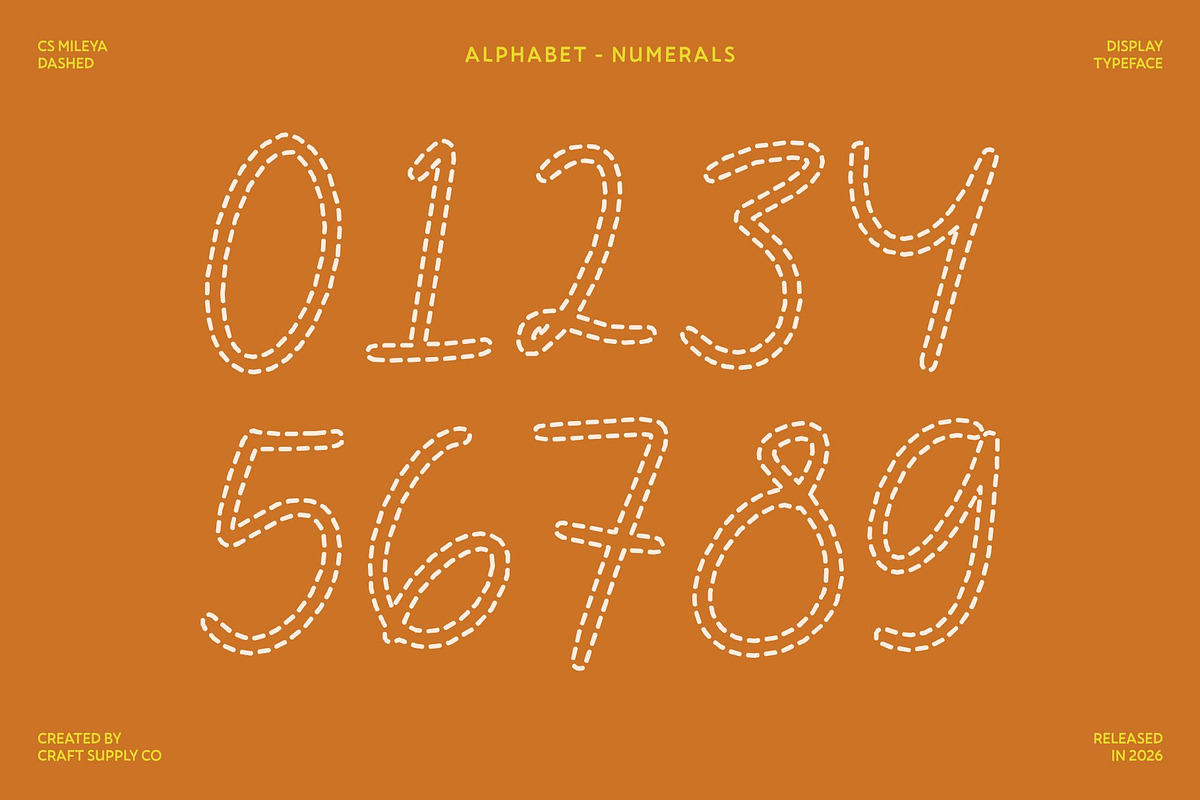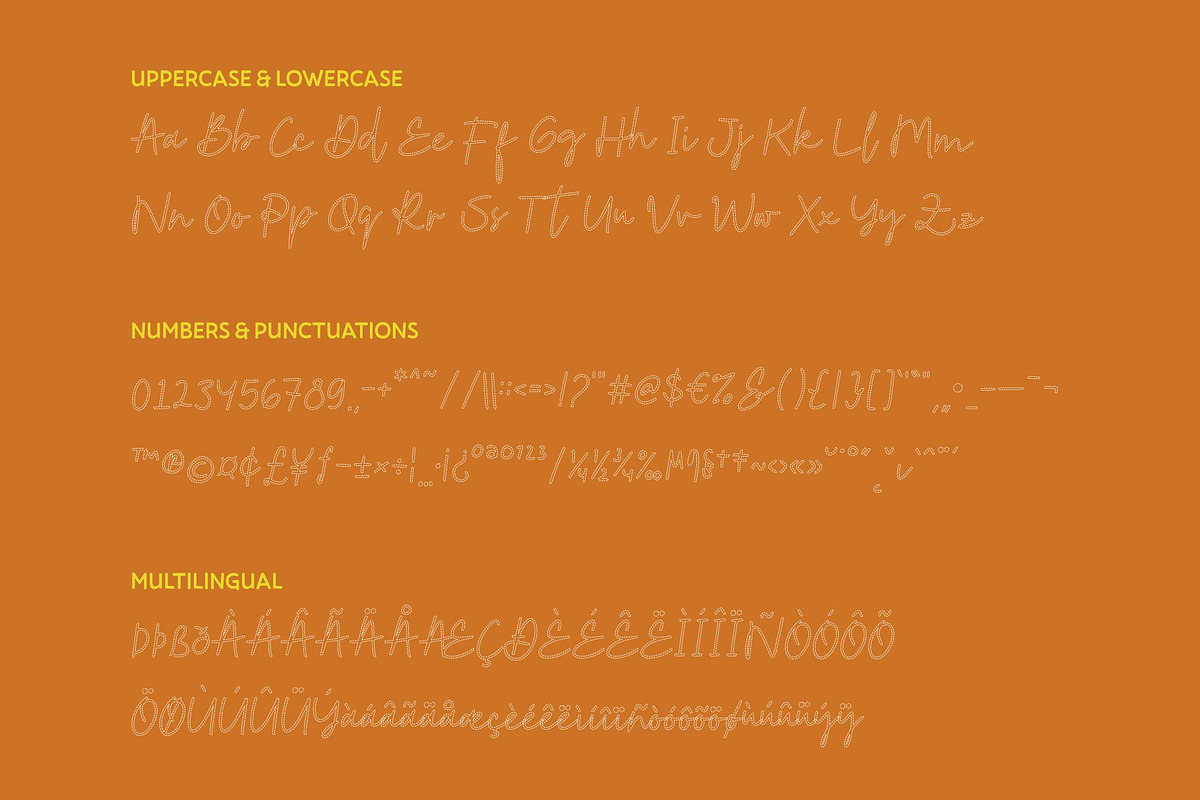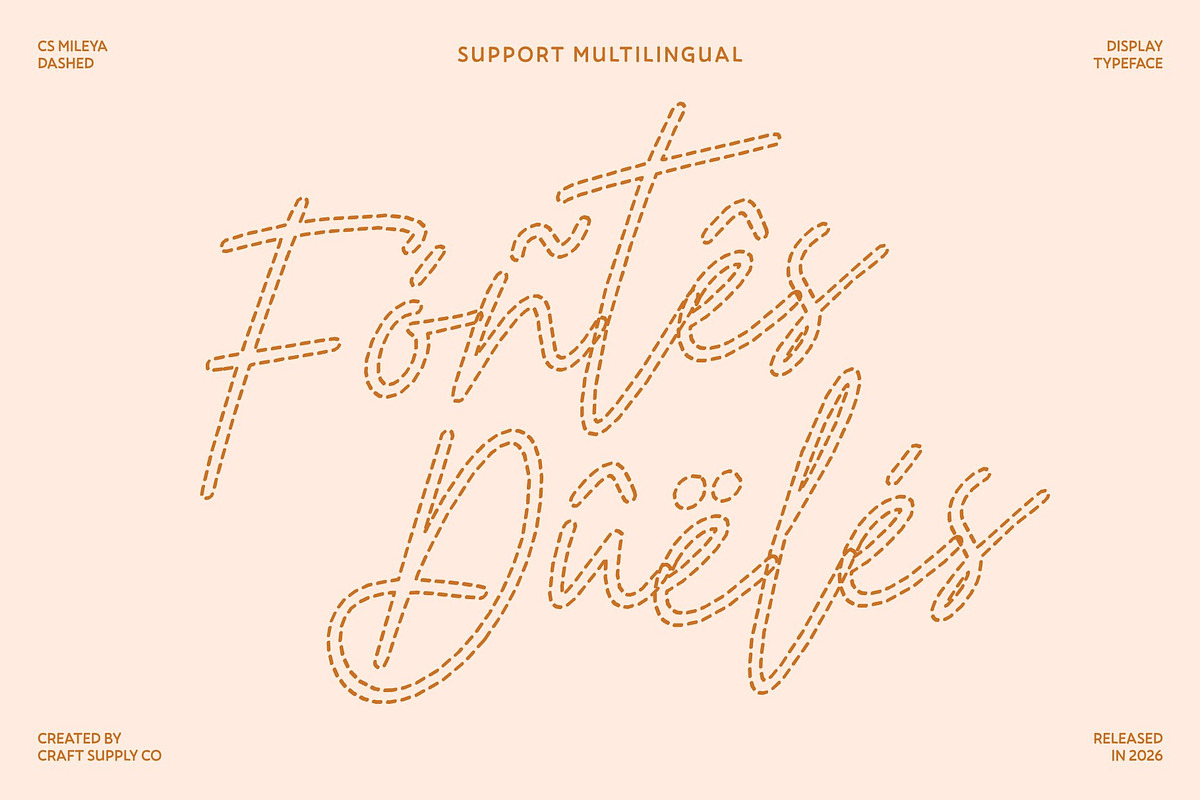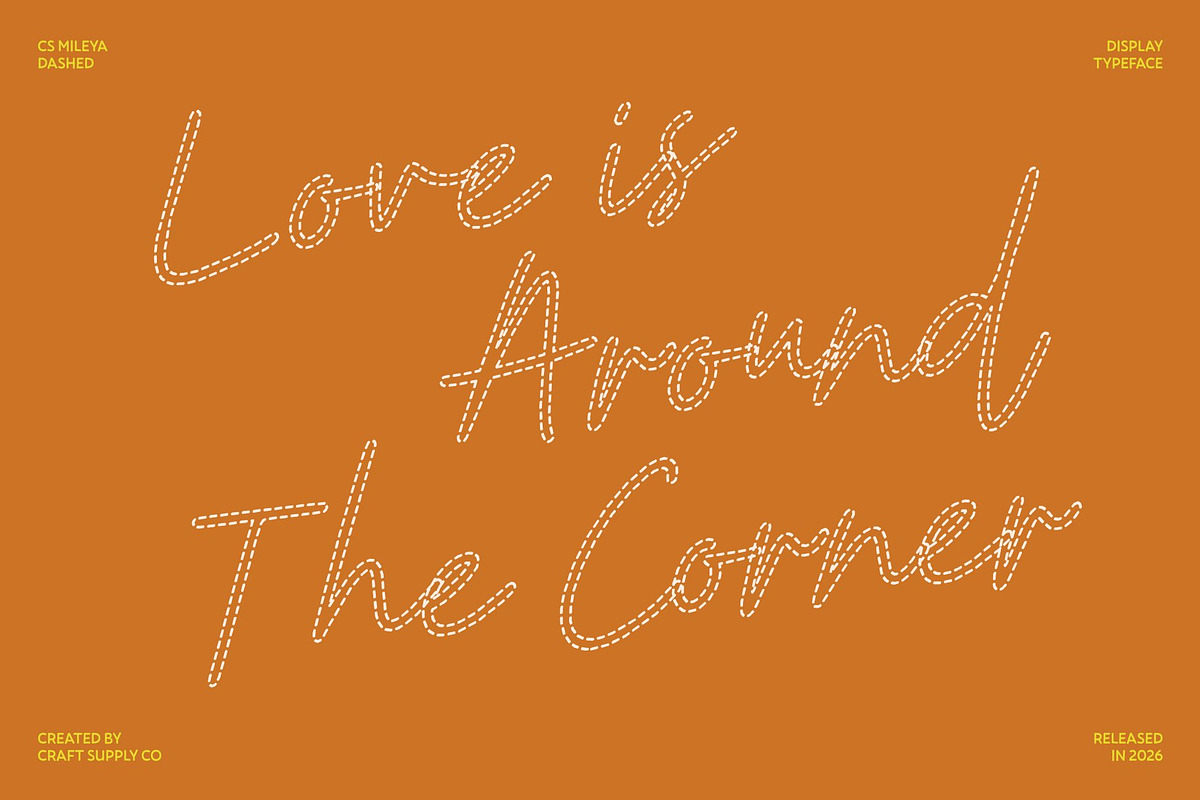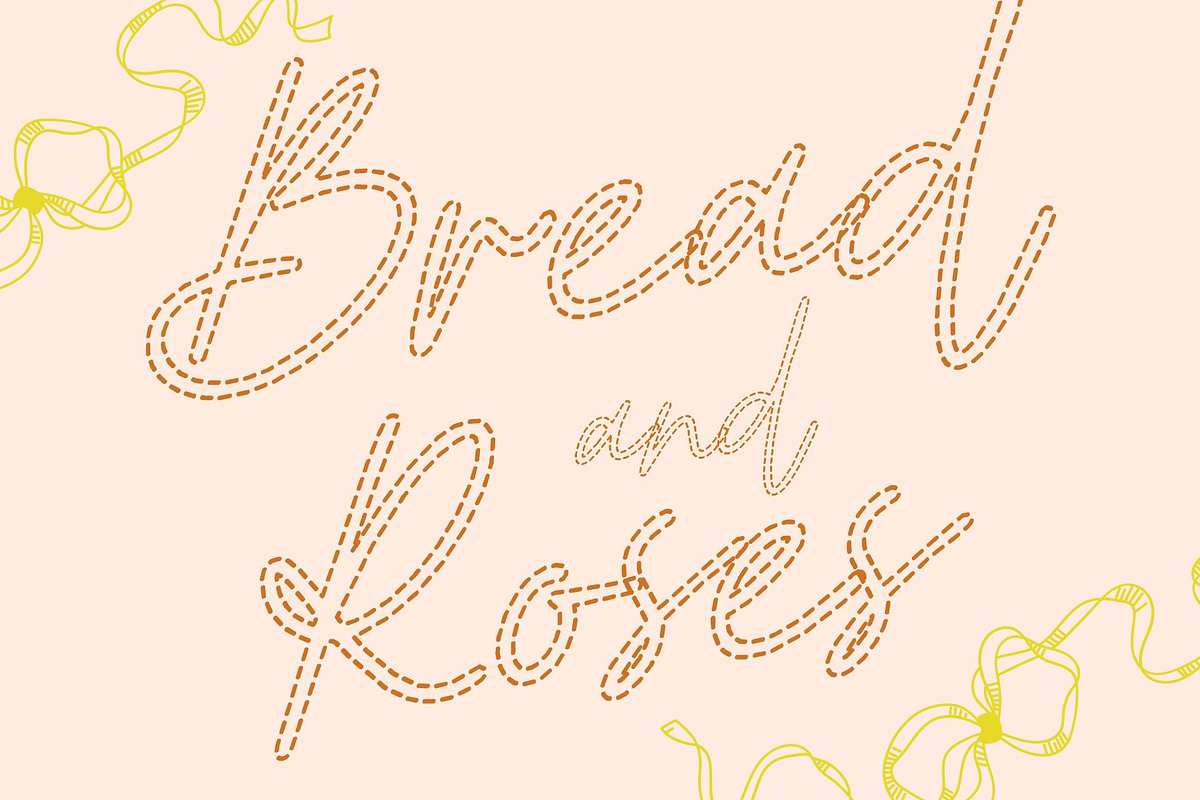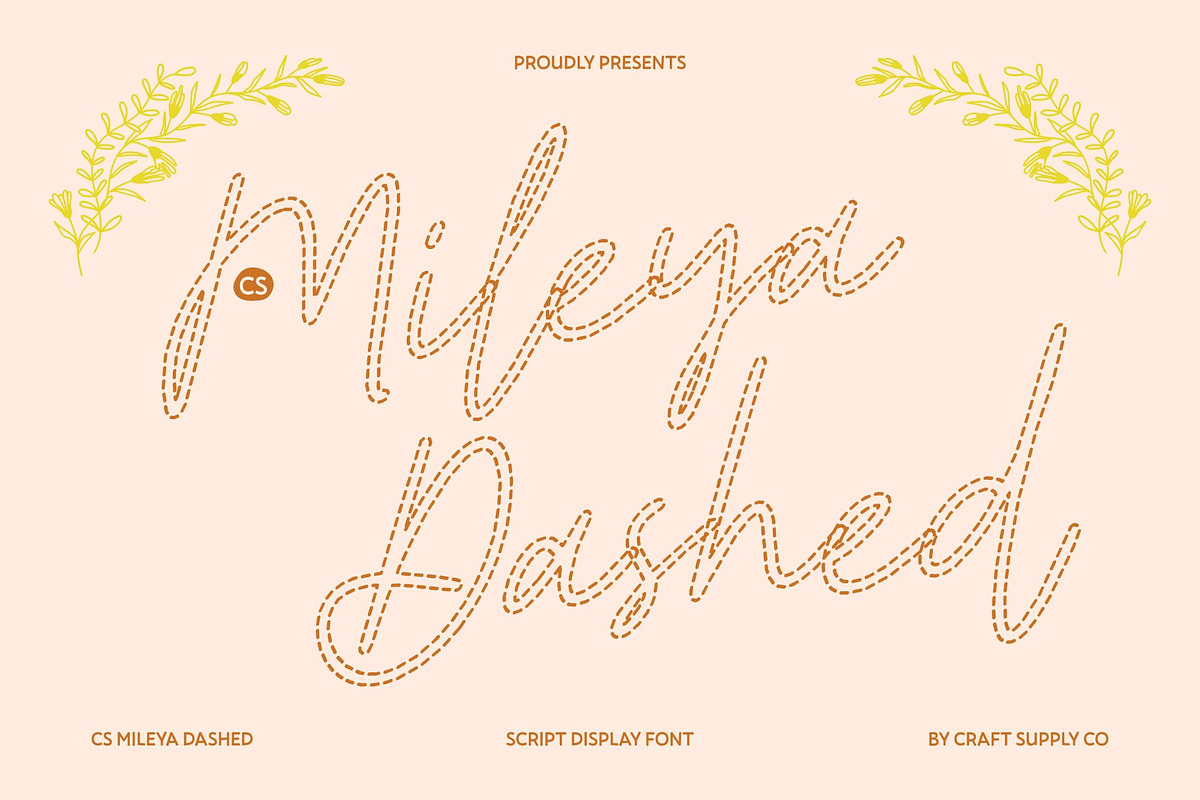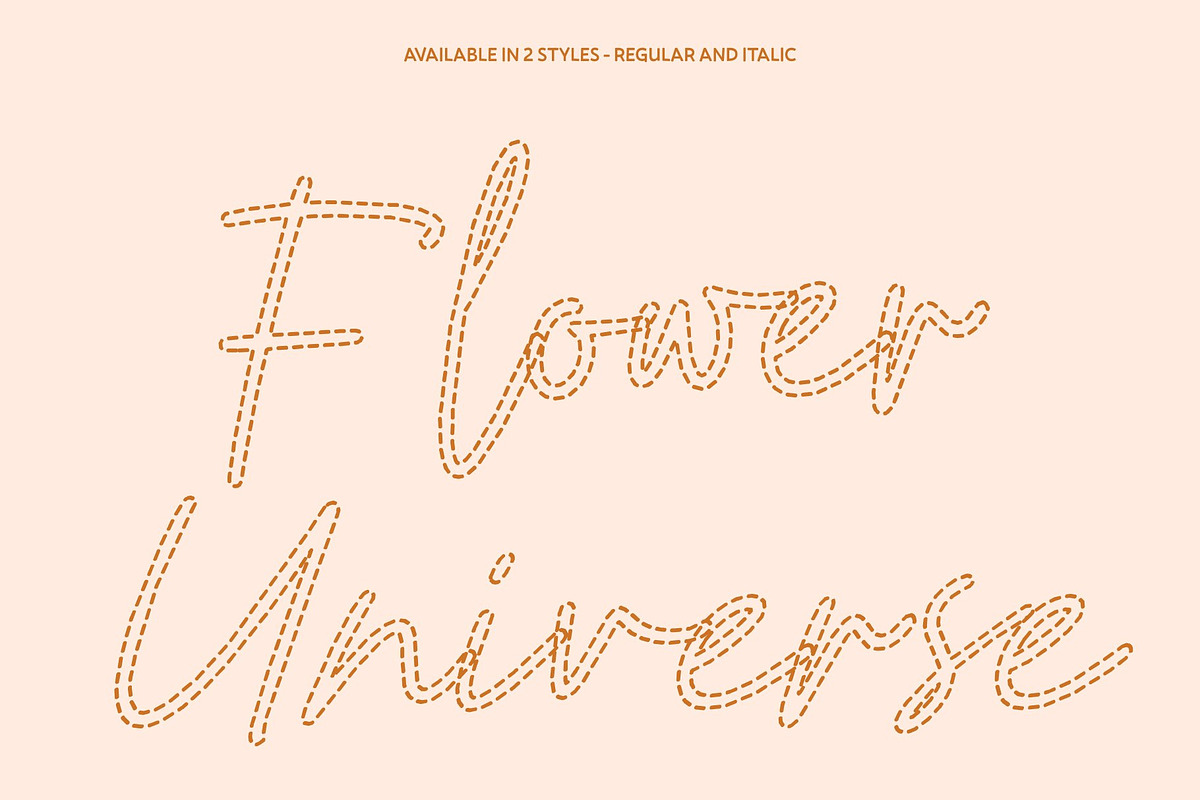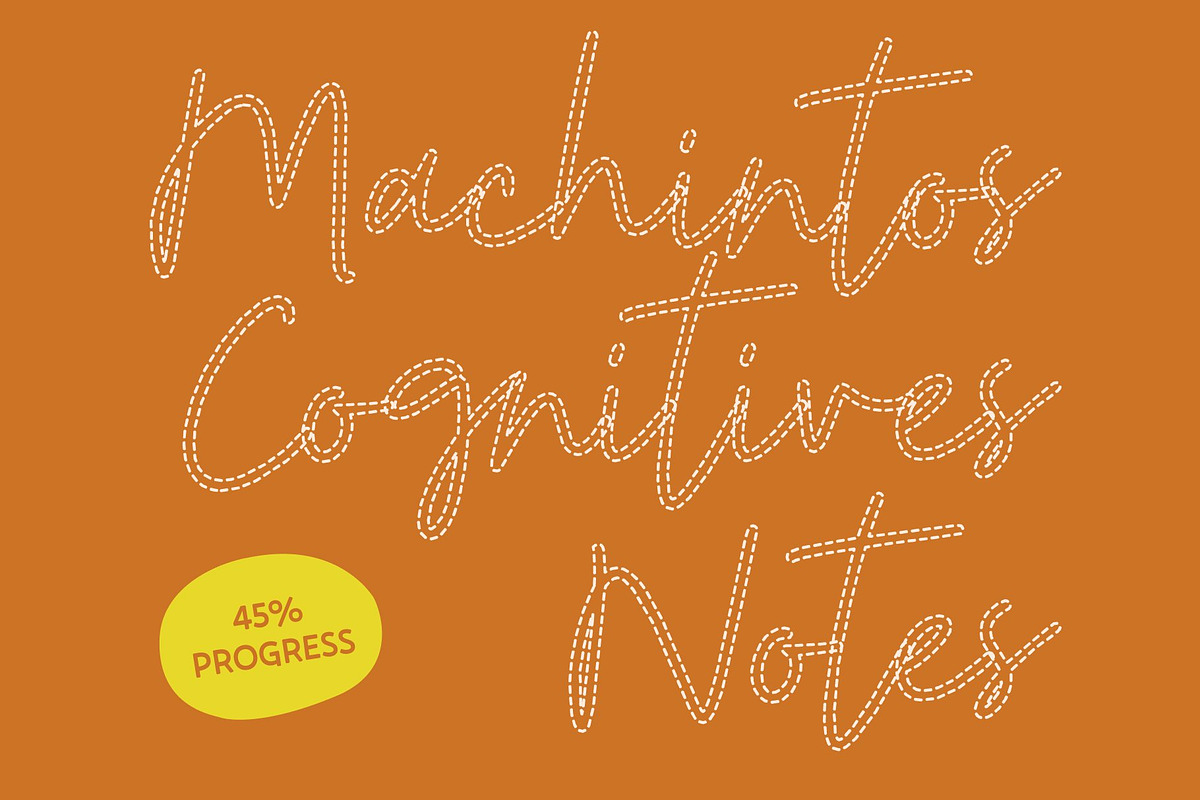
CS Mileya Dashed
CS Mileya Dashed – Graceful, Stylish, and Modern Script Elegance
A Flowing Script with Contemporary Sophistication This is a stylish script font designed with beautifully flowing strokes and graceful curves. Its modern rhythm gives every letter a smooth, luxurious movement, making your text feel refined and effortlessly elegant. Whether you’re crafting romantic layouts or high-end visuals, this font adds a polished touch that enhances your message with sophistication.
Elegant Script with a Light Dashed Texture The dashed style transforms each stroke into a sequence of delicate, broken lines, creating an airy and handcrafted appearance. This subtle stitched effect softens the script’s elegance with a creative and relaxed personality, adding visual texture while preserving clarity and flow.
Graceful Curves That Elevate Every Design Fluid lines and chic calligraphic nuances turn simple text into a refined visual statement. The sweeping connections and gentle bends give each word an exclusive, intentional feel perfect for designs that demand beauty and artistry without sacrificing readability.
Perfect for Weddings, Fashion, and Luxury Media This font shines in premium visual settings such as wedding invitations, fashion branding, luxury packaging, beauty campaigns, and editorial layouts. Its refined script style pairs beautifully with minimalist compositions, soft color palettes, and sophisticated branding.
CS Mileya Dashed Regular
CS Mileya Dashed Italic